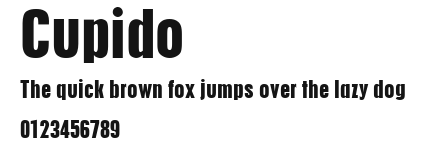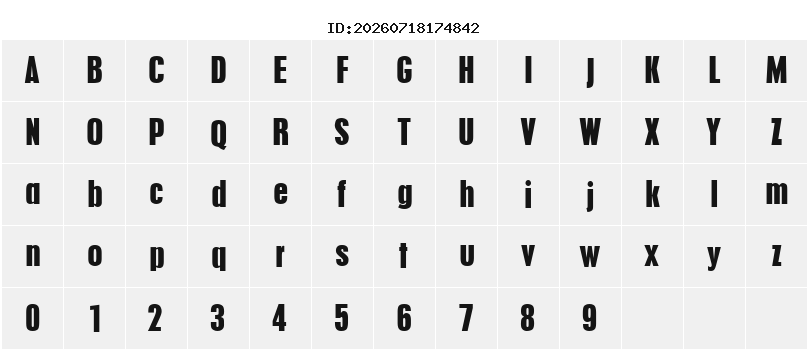
About Cupido.ttf
Cupido.ttf is a modern, elegant sans-serif font designed for ultimate readability and visual harmony. Perfect for branding, headlines, web design, and print materials.